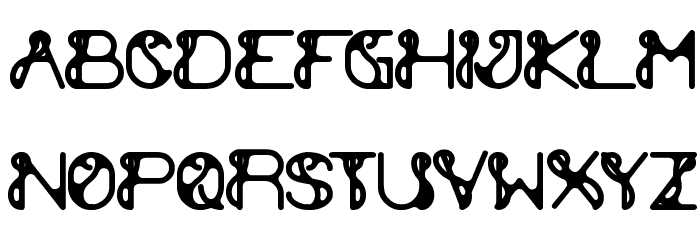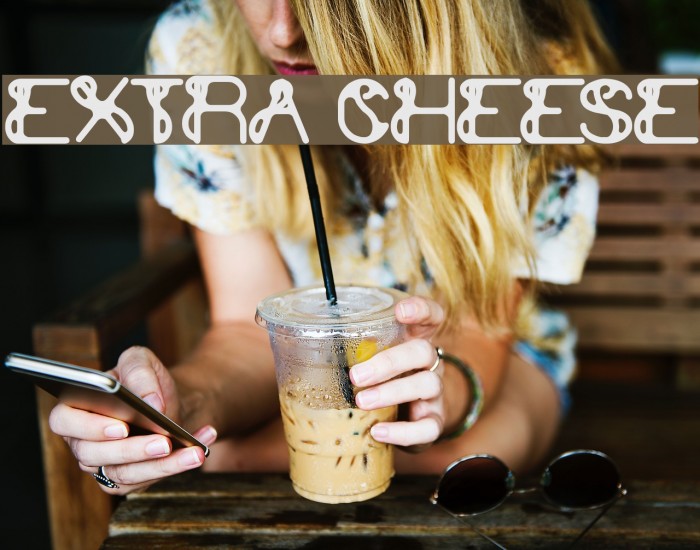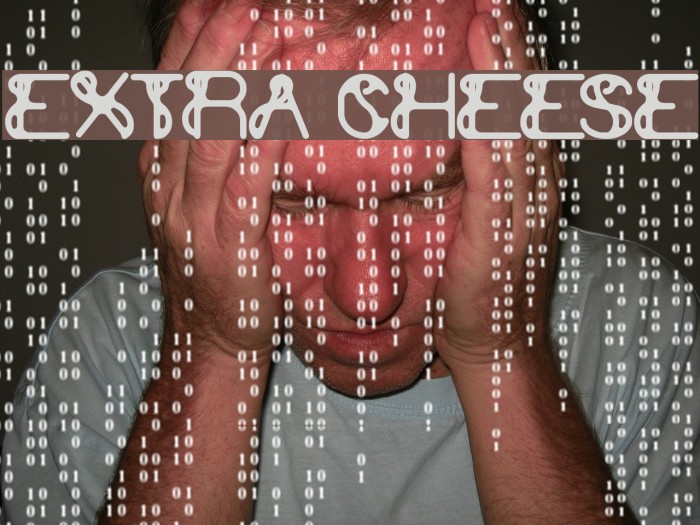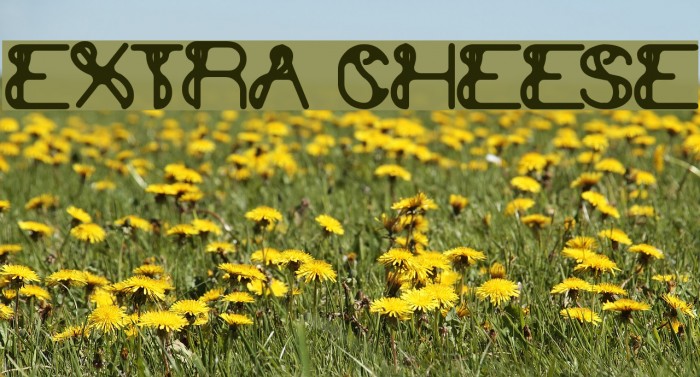
extra cheese Font
This font features a unique and playful design with a decorative style that incorporates circular cutouts within each character, creating a whimsical and artistic appearance. The letters are bold and have a consistent thickness, giving them a strong presence on the page. The overall design is reminiscent of a retro or vintage aesthetic, making it suitable for creative and eye-catching projects. The characters are evenly spaced, ensuring readability while maintaining the decorative elements that make this font stand out.
A playful, decorative font with circular cutouts and a retro vibe.
- Proposed Projects: Ideal for posters, album covers, branding, and creative projects that require a distinctive and artistic touch.
- Overall Style: Vintage
- Use Case: Logos, Posters, Headlines